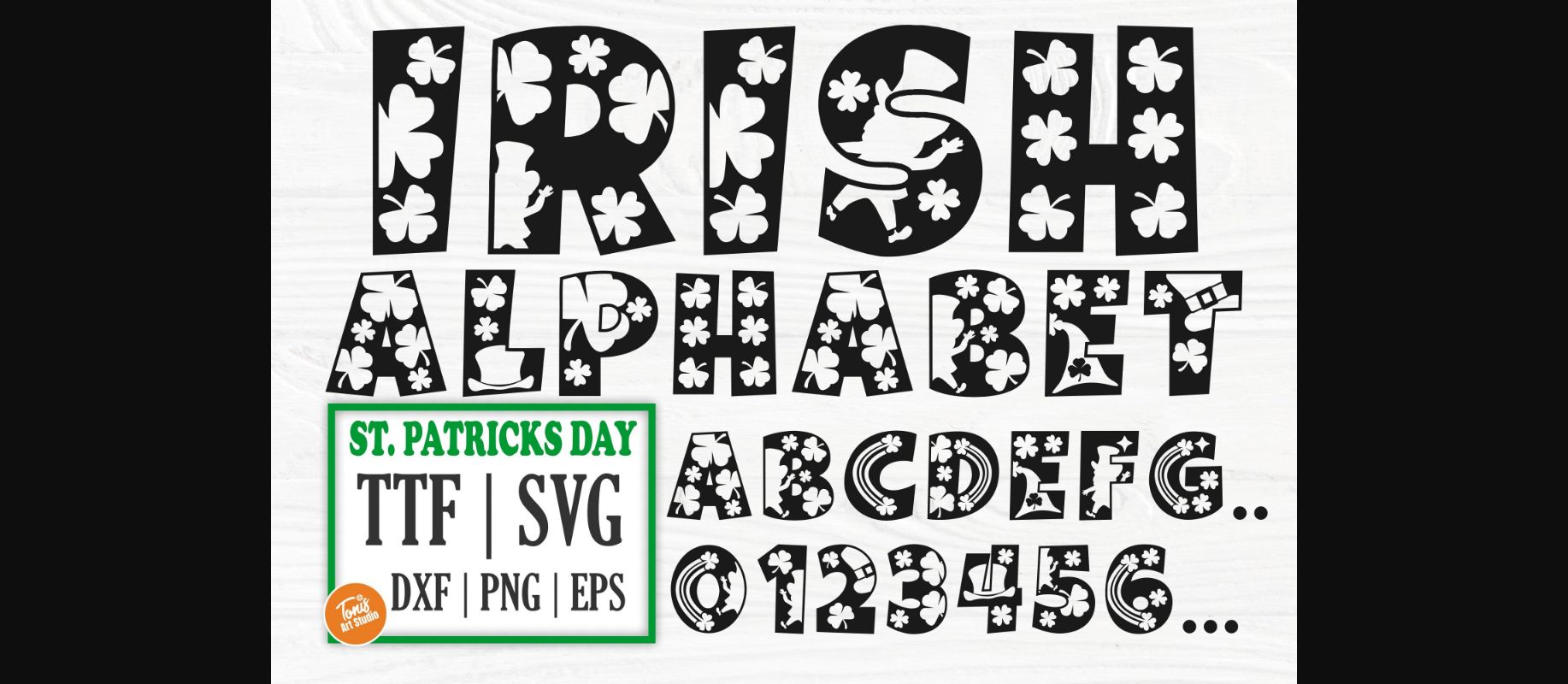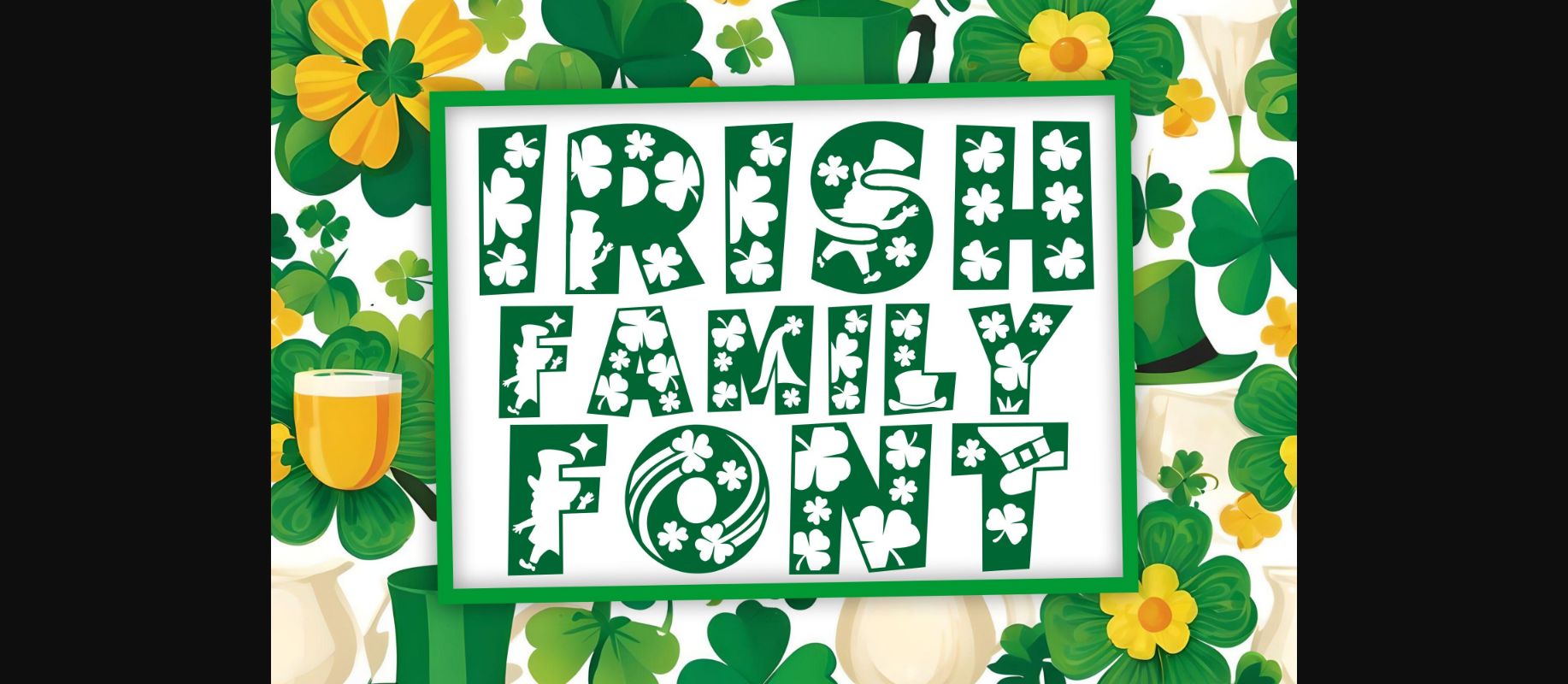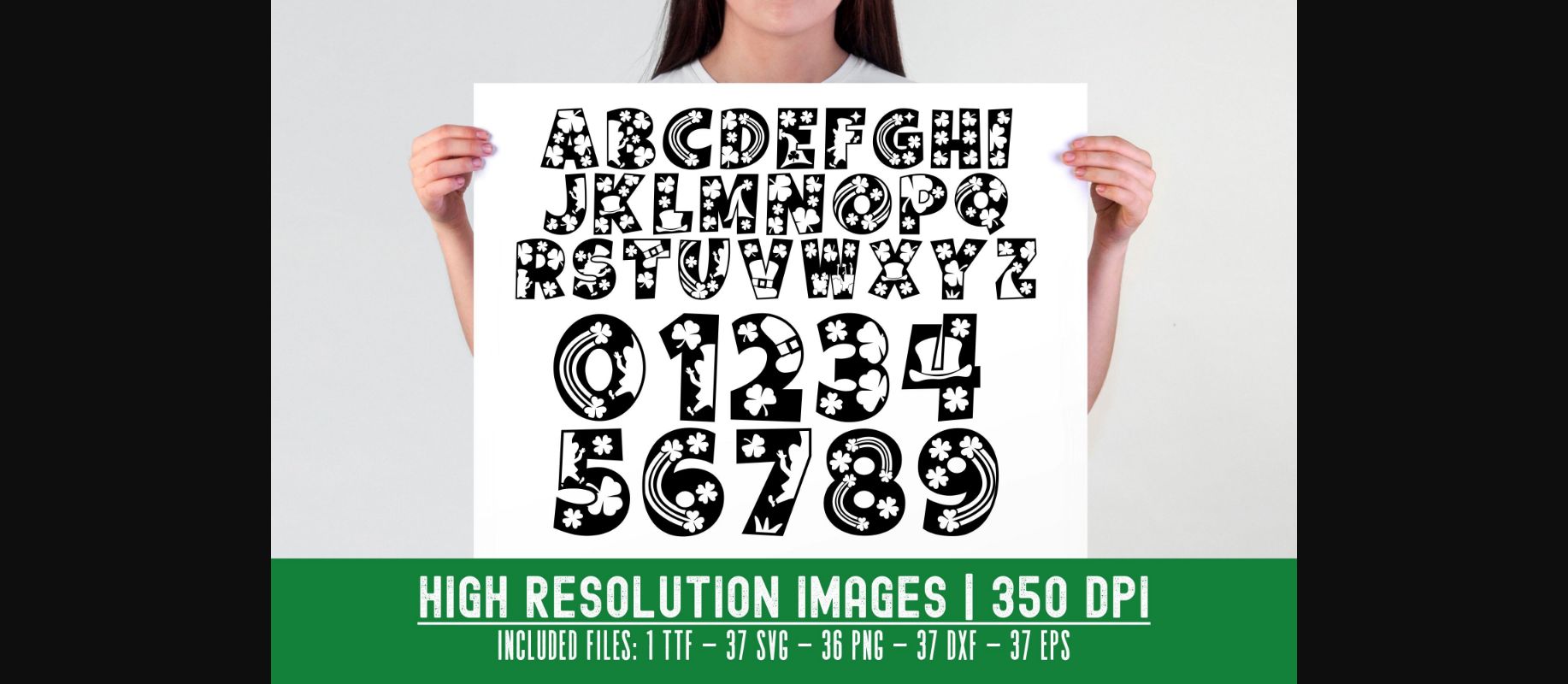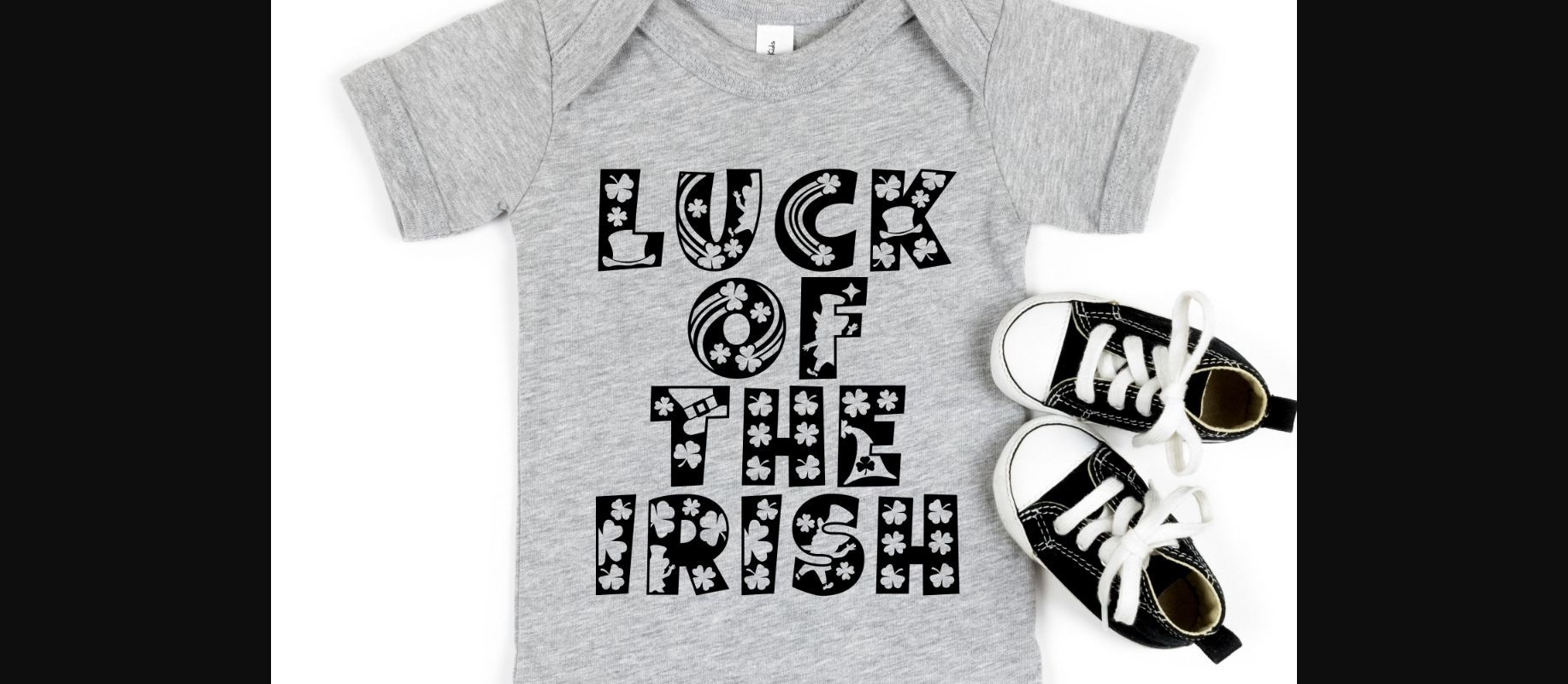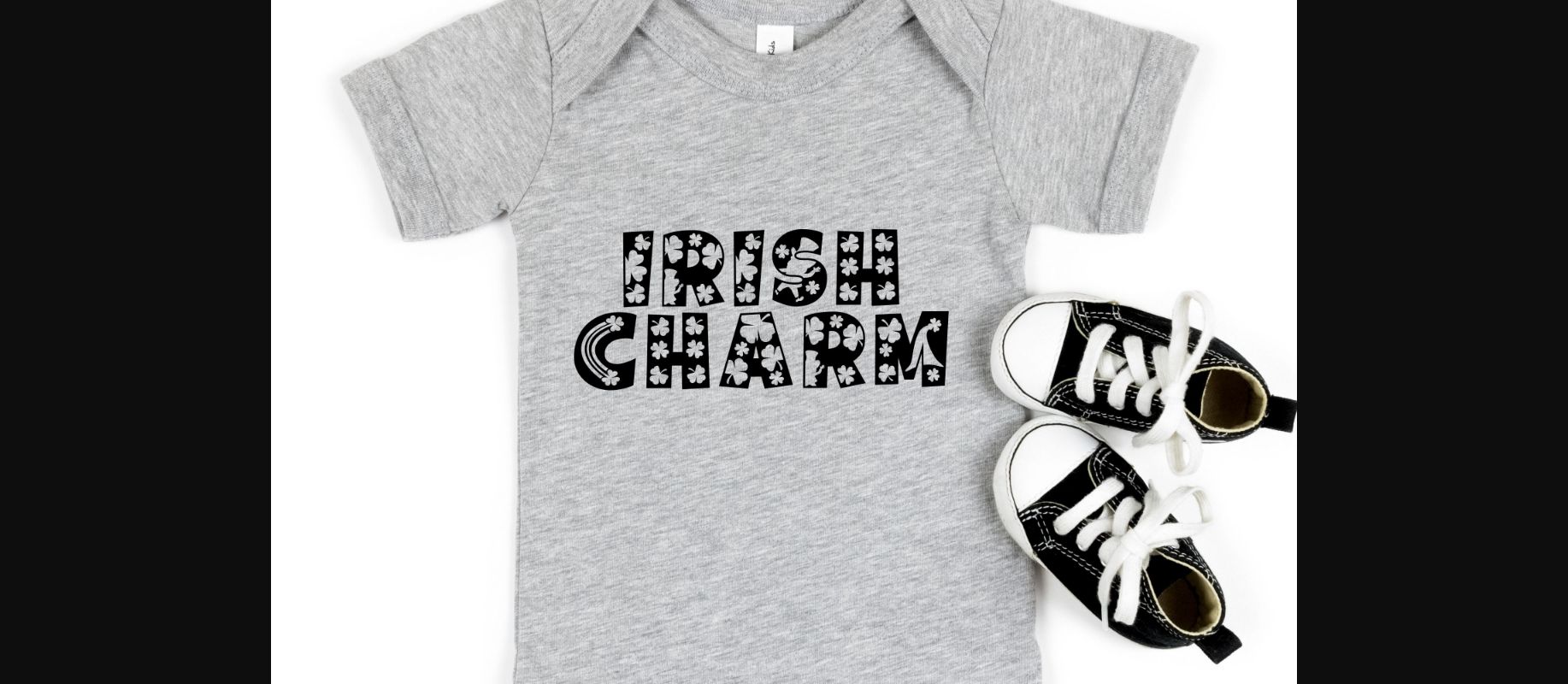
St Patricks Day Font
About St Patricks Day Font
Add a touch of Irish charm to your projects with this versatile decorative font. Perfect for all your St. Patrick’s Day crafts, this cute font will bring a festive feel to any design.